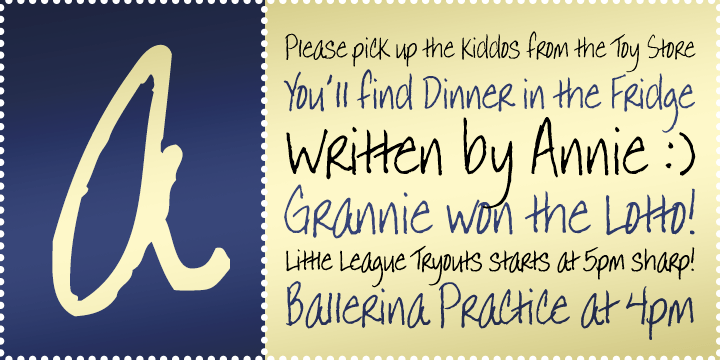
Jukay BTN
Jukay BTN is a playful handwritten display font inspired by teenage notebook scribbles and casual mall-rat attitude. Its loose, informal style feels personal, spontaneous, and full of youthful energy, making it a natural fit for scrapbooking, journaling, greeting cards, party materials, school-themed graphics, blog design, and playful branding. Jukay BTN brings an easygoing handwritten voice to layouts that want to feel fun, expressive, and authentically offhand.
Jukay BTN includes 258 glyphs.